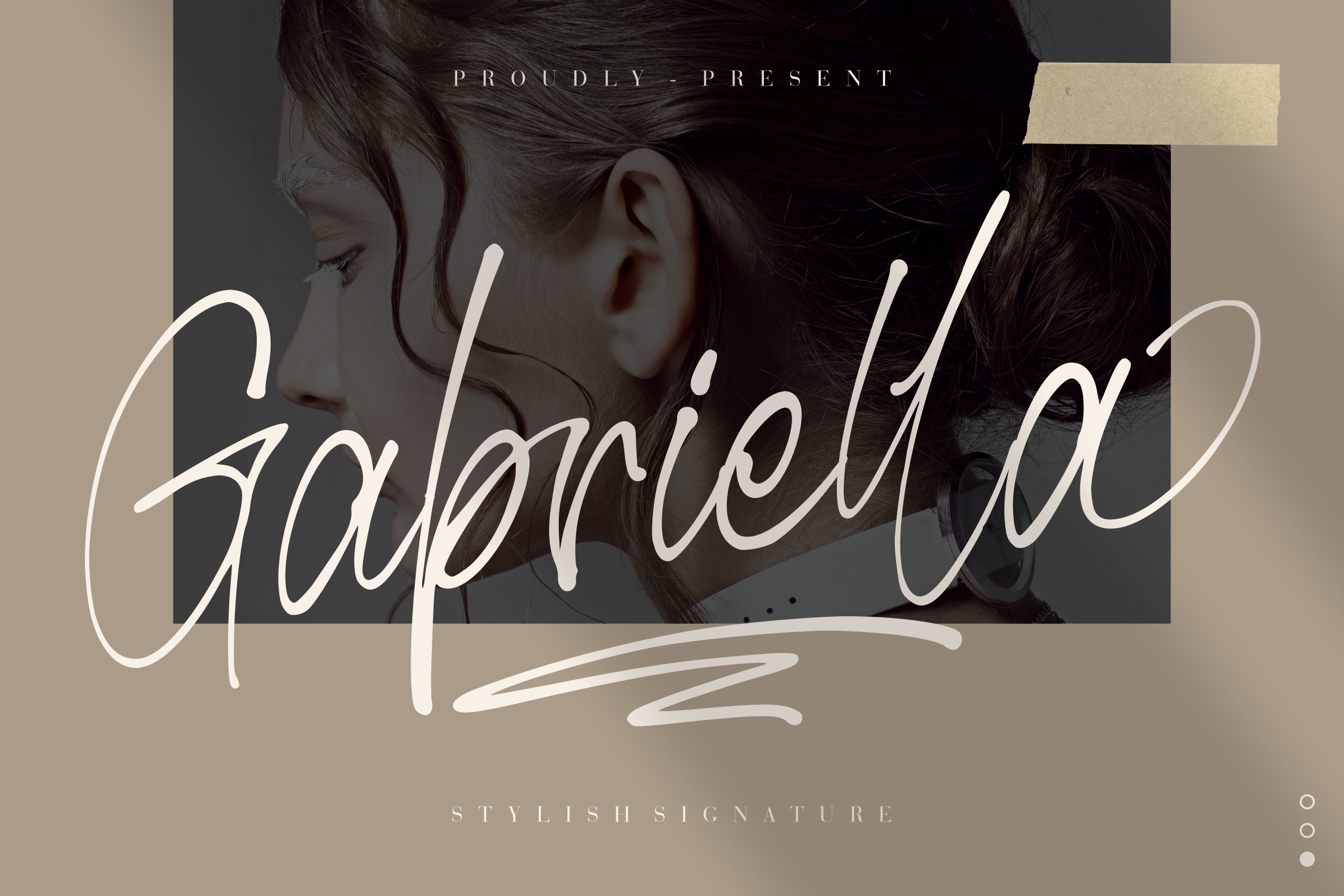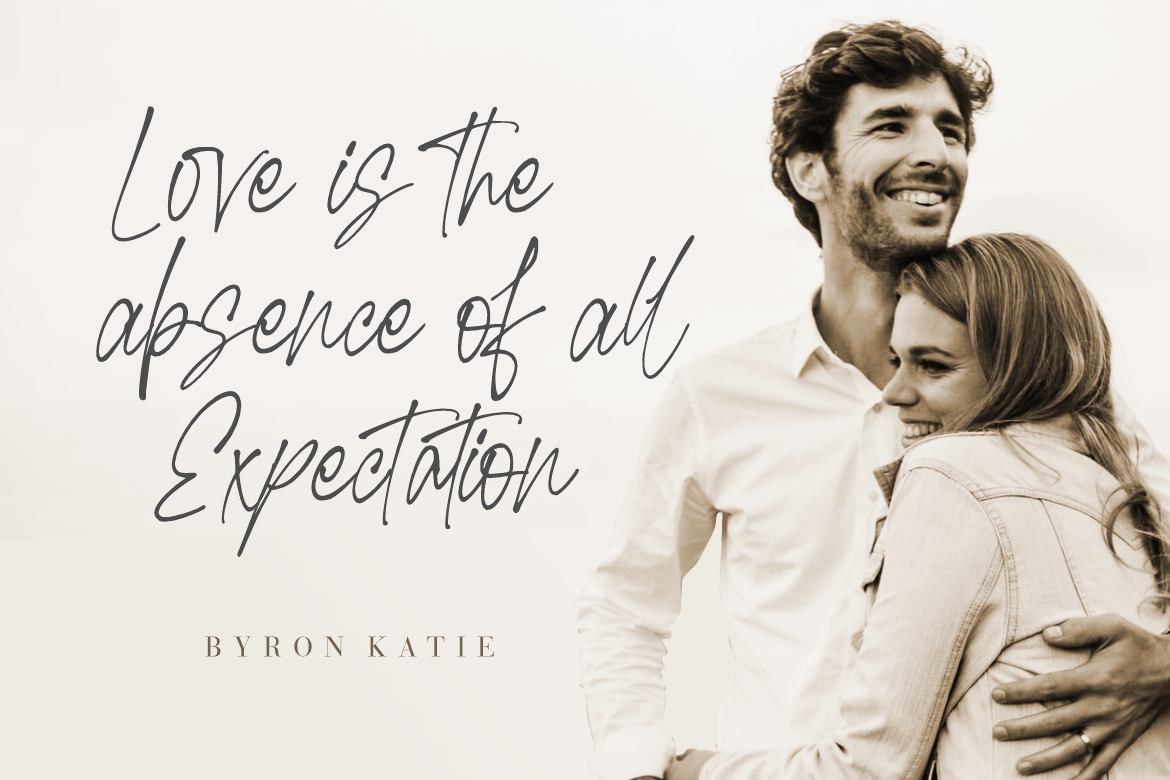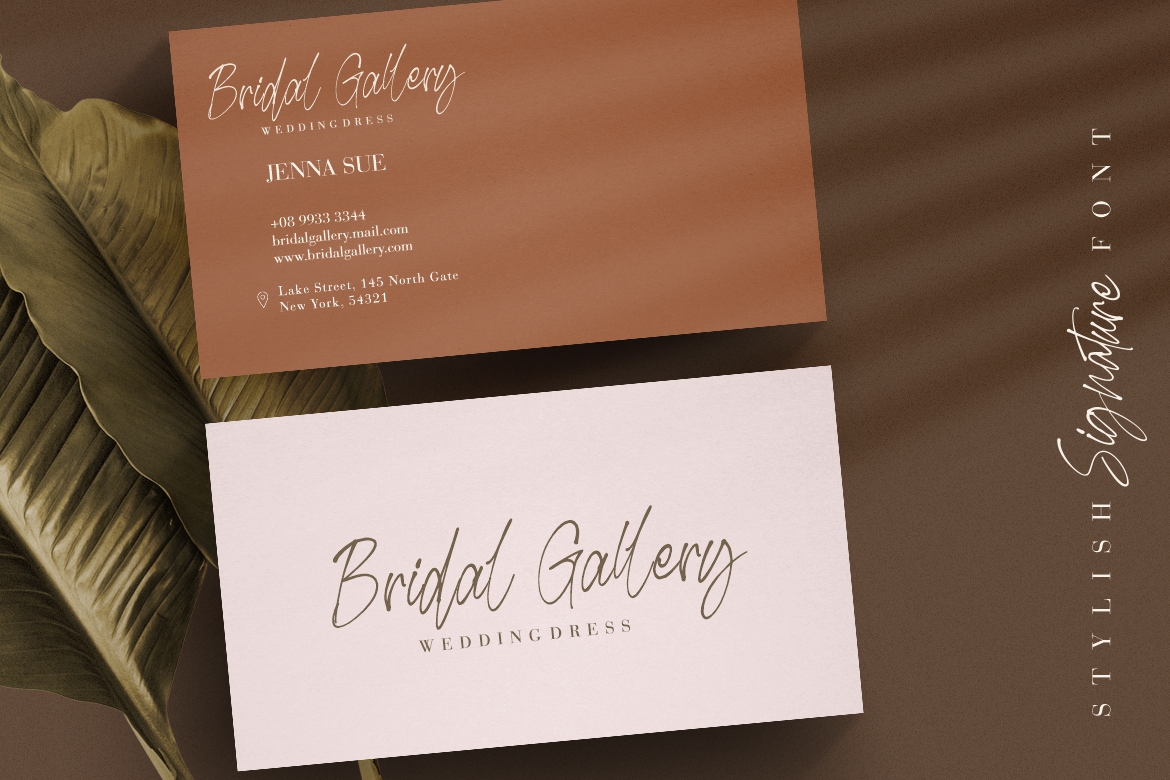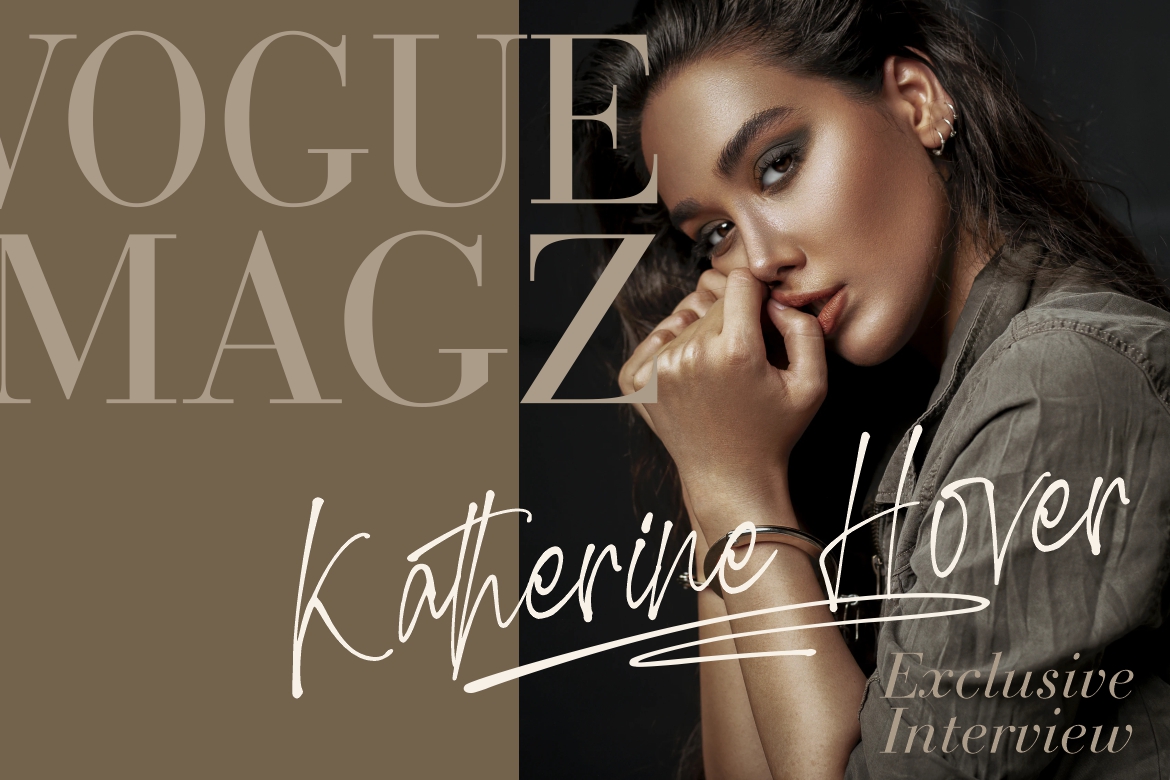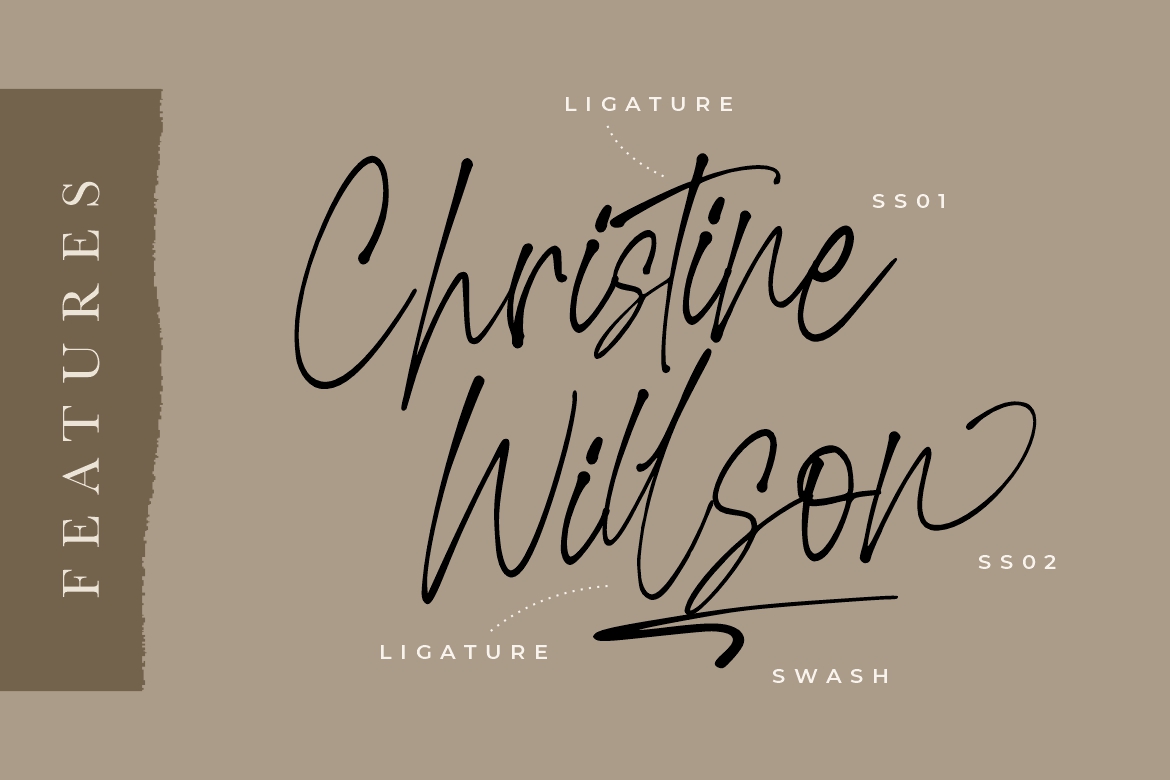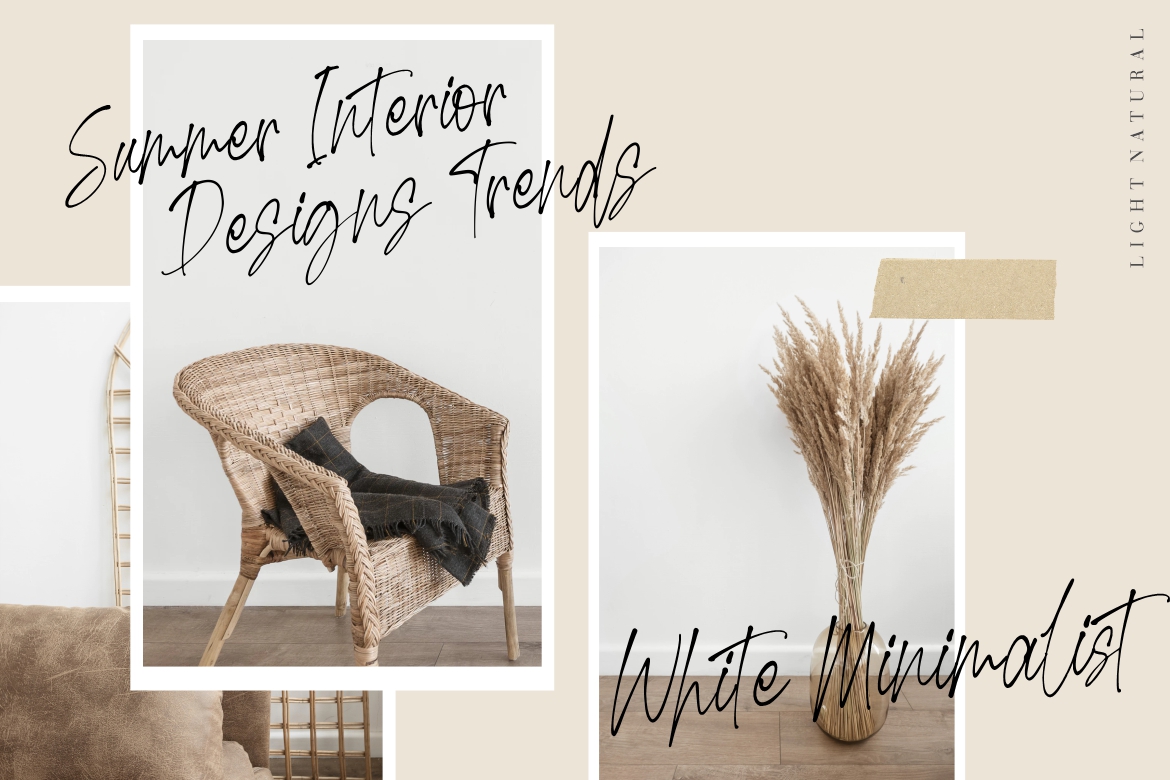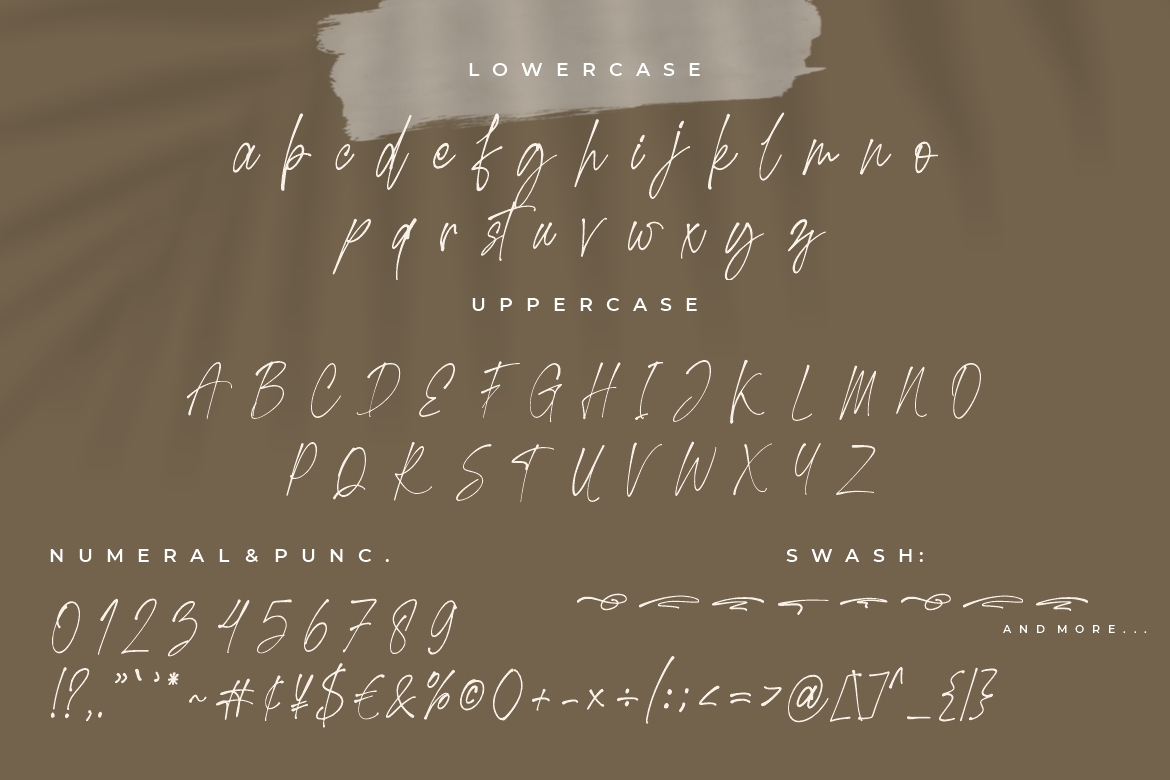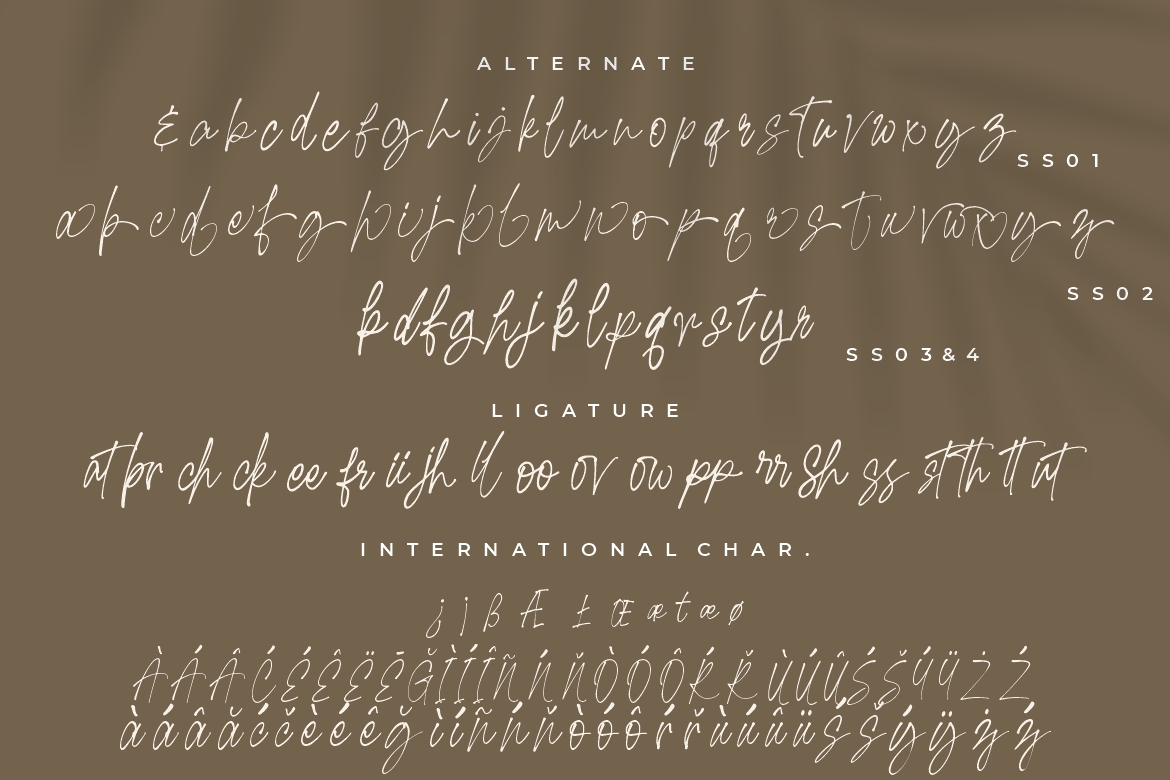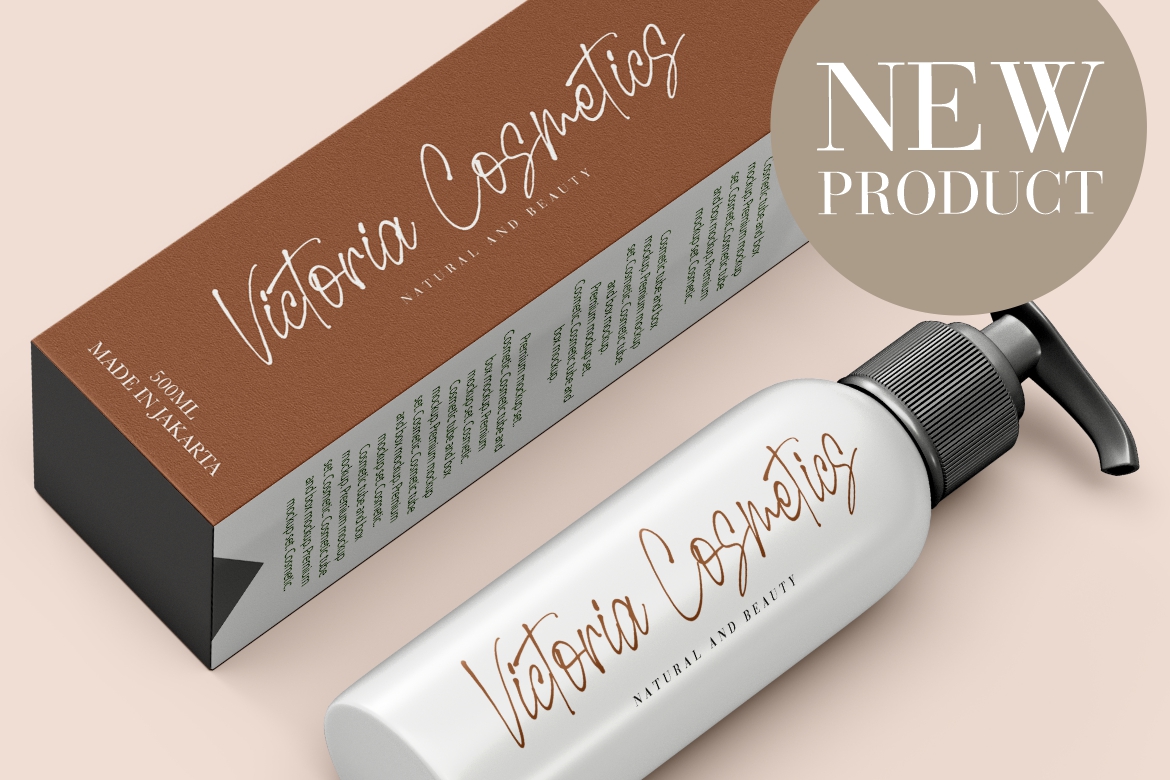
Introducing Gabriella Stylish Signature – A script signature stylish font with elegant, sophisticated and luxury looks. This font will looks awesome and amazing in many way to your latest project. The font is perfect for for movie title, logo, blogging, brand identity, book title, social media, branding, wedding invites, cards or simply use it in your next design project and suitable to use for many occasion.
• Fonts include multilingual support for; Afrikaans, Albanian, Czech, Danish, Dutch, English, Estonian, Finnish, French, German, Hungarian, Italian, Latvian, Lithuanian, Norwegian, Polish, Portuguese, Slovak, Slovenian, Spanish, Swedish.
Gabriella Stylish